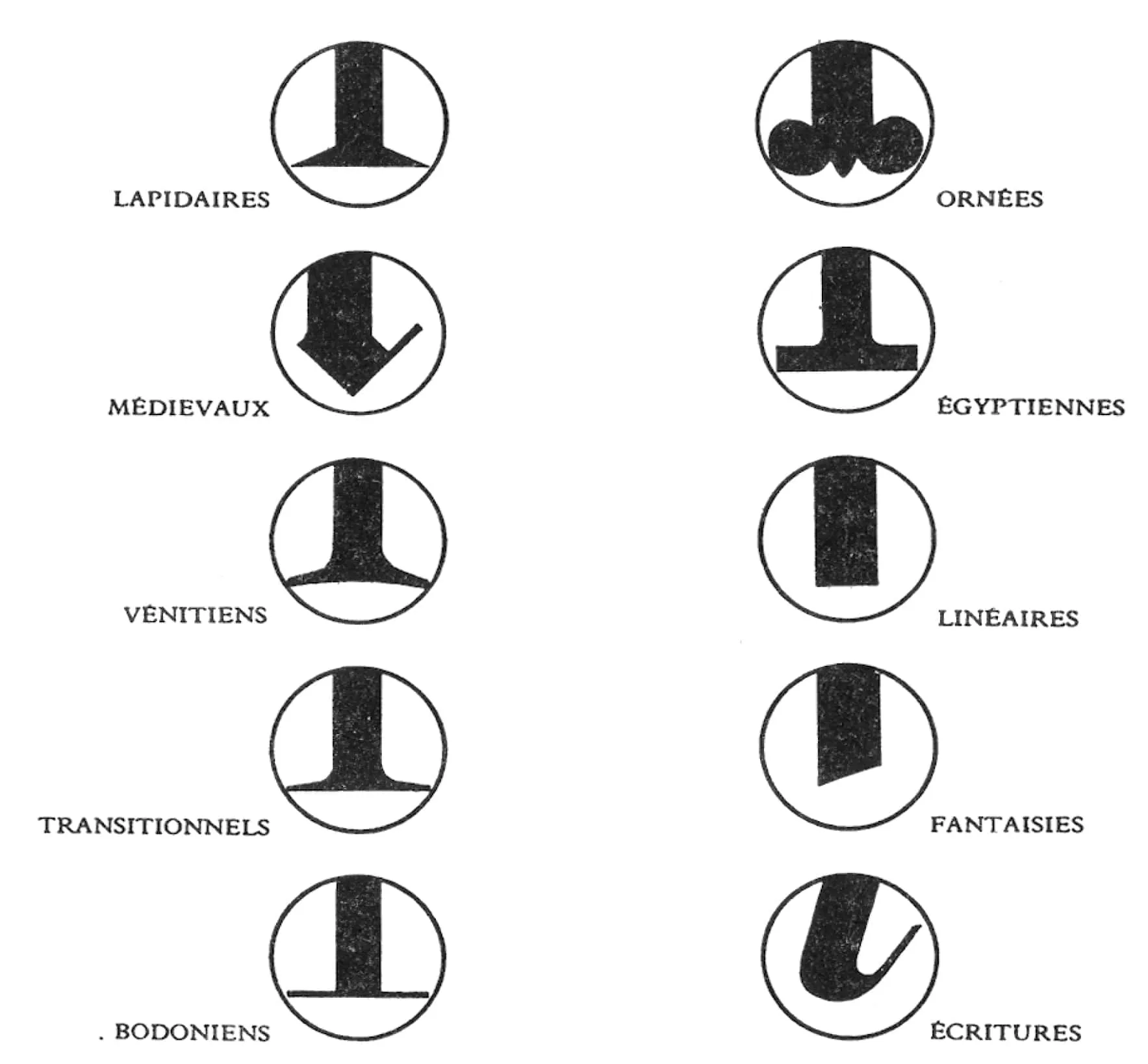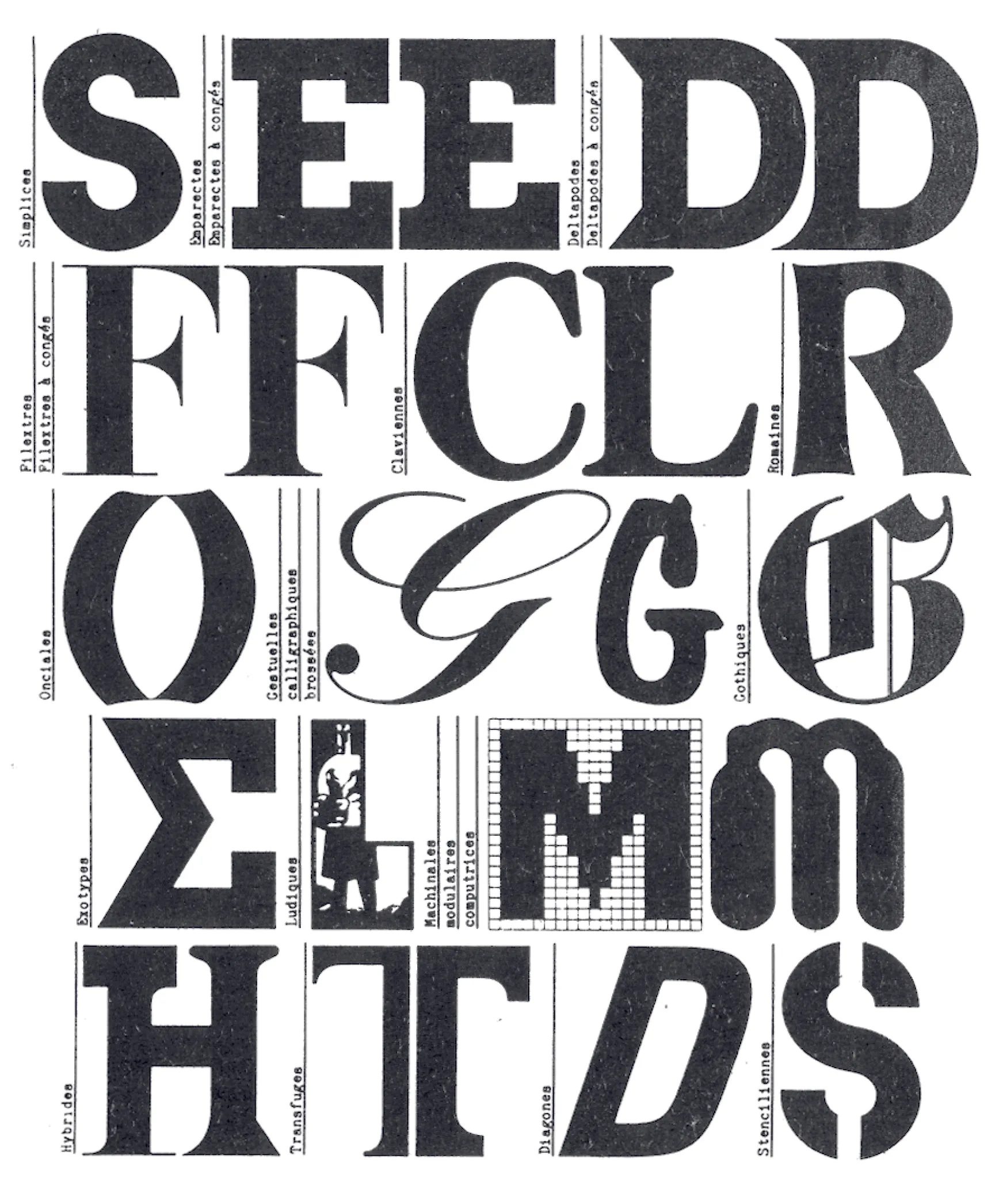
​VoxAtyp-I :
why it’s not enough, why it’s difficult to do better ?
In January 2023, we had analyzed a bit of the history of typographic classifications.
The Vox-ATyp-I classification remains the only typographic classification shared by the whole world: it was adopted, with some modifications, as a German standard (DIN 16518) in 1964, as a British standard (British Standard 2961:1967) in 1967, and as a French standard (NF Q60-007) in 1977.
Developed in 1954 by the Frenchman Maximilien Vox (1884-1974), it was adopted by the ATypI in 1962. But the association announces on its website that this classification will be de-adopted on April 21, 2021.
The reasons are:
“At a regular meeting held online on March 18, 2021, the ATypI board of directors passed two resolutions—one formalizing the de-adoption of the Vox-ATypI system and another directing the establishment of a working group to study the feasibility of developing and collaborating on contemporary typeface classification systems that embrace the wealth of writing systems from around the world.”
The merits of this initiative are not in question. While the designers of modernism worked almost exclusively on typefaces for the Latin writing system, countries using other writing systems were relegated to the sidelines. Worse, the meager presence of non-Latin typefaces reinforced the presence of transcriptions systems based on the Latin alphabet.
Two years after this announcement, there is little evidence of work on a new classification system to replace the Vox-AtypI. Thus, the imperfect or failing classification still remains the reference from the point of view of the standard norms than the profession.
Several points are important to emphasize in order to understand why the Vox-AtypI classification remains an effective, though imperfect, tool.
Before Vox's classification, another french graphic designer, Francis Thibaudeau (1860-1925) published a french manual of typography in 1924 with its own classification.
Thibeaudeau classification remains a taxonomy based in the form of the serif, quite close to Vox's classification but with fewer categories.
Economy
The domination of a Western economy over the whole world is a fact that one can deplore, but that one cannot dispute. Even if Asia and China in particular are competitors, the Chinese ideogrammic writing system is difficult to learn for a Westerner as well as for an Asian. The speed of learning the alphabet, Latin as well as Greek or Cyrillic and the ease of use of these writing systems thus allow the Chinese to facilitate the pronunciation of the language via the transcription in Latin characters, the pinyin.
One could say that the invisibilization of non-Latin writing systems in favor of the Latin script is similar to the loss of influence of national and dialect languages in favor of English. Globalization and capitalism imply a standardization that is as beneficial as it is detrimental to the cultural richness of each language and each writing system.
However, commercially, the typographic market is naturally drawn to marketing typefaces that can cover the largest market. Similarly, training in type design is more prevalent among countries where Latin script is covered. Culturally, learning typographic design for non-Latin writing systems for a Latin designer is a significant challenge. The eye needs to be more than accustomed: it needs to be immersed in the script, its history and its practice.
By focusing more on the Latin script, the Vox-AtypI classification covers a small field of writing systems, but a large field of typefaces on the market.
Pragmatic
To understand the modelling logic of a classification is to understand that it is a question of bringing out the logic that links each item. Thus, the classification of living beings brings out the common points and morphological differences corresponding to the Darwinian evolution of the tree of life: between common ancestors, various branches separate and show the natural evolution during life.
Classification should not be a goal, but a method of visualizing structural principles. Typography is an applied art practice. In this, it is part of a creative process where freedom is one of the possible parameters. To classify in a logical way what turns out to be illogical is thus an all too human utopia. If I decide to create a typography where each glyph is a character without any link with the next one, I would have to create a "Miscelaneous" category thus breaking the rule of each classification:
"The system should be minimal: maximum parsimony is the best proof of the efficiency of the system. If you need 5000 categories to classify 5000 objects, then it's not a classification.".
Classifying a typography can be artificial since it would be useless to classify a piece of music by trying to include the musical genre (classical, baroque, jazz, pop, etc.), the instruments used (piano, violin, classical orchestra, voice, etc.), the form of composition (opera, concerto, etc.) and other indications of rhythm for example.
It would be tempting to use CEDARS+ as a descriptive tool, but again, describing is not cataloging, creating a branch for a typeface, is not classification.
That the AtypI manages to create a classification is highly probable, that it is coherent seems unlikely, that it is used seems utopian.
Typographies are identities inscribed in the letter. As such, they carry a constellation of criteria whose impressionistic composition gives the illusion of a solid unity.